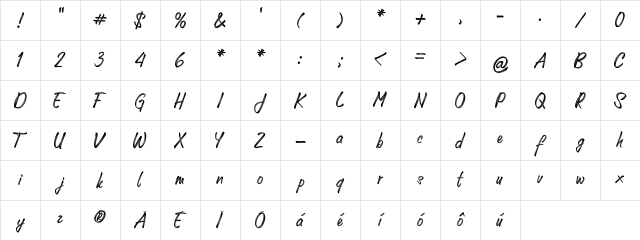
Unforgotten More is a composed and adaptable typeface that performs quietly and consistently across a wide range of design contexts.
Pro Tip: Use Unforgotten More in both headline and body roles to test its range before committing to a single application.